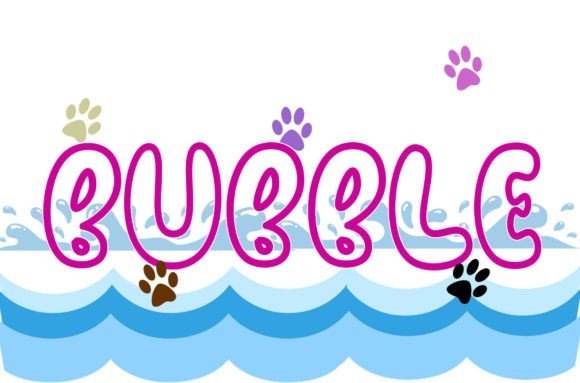
The Joy of Bubble Font: Bringing Whimsy to Your Designs
Have you ever sat down with a blank canvas, a spark of creativity in your mind, and a sense of excitement building up inside you? That’s where the magic happens, and for many designers, the key to unlocking that magic lies in the perfect font. For those who adore a touch of nostalgia and whimsy in their work, Bubble Font is the perfect companion.
Bubble Font is a charming retro-style display font designed to bring a sense of fun and playfulness to your designs. Whether you’re crafting birthday invitations, book covers, or children’s themed banners, this font is sure to add a touch of personality and charm. Its versatility and wide range of applications make it a valuable addition to any designer’s toolkit.
- Font Type: Bubble Font is a sans-serif font designed to resemble bubbles, with rounded edges and a playful feel.
- Character Set: Includes a wide range of characters, including uppercase and lowercase letters, numbers, and punctuation marks.
- Unique Characteristics: The Bubble Font features a unique, bubble-like design that adds a touch of whimsy and playfulness to any text-based project.
- Legibility: Despite its playful design, the Bubble Font is highly legible and easy to read, making it suitable for a wide range of applications, from children’s books to advertising materials.
Bubble Font Review
Overall, I think Bubble Font has some really interesting elements that make it stand out ✨. The rounded edges and bubbly texture give it a playful, whimsical feel that’s perfect for fun and creative projects. The font also comes in a range of weights and styles, which is always a plus for designers.
One of the things that works well about Bubble Font is its versatility ✨. It’s great for use in logos, social media graphics, and even digital signage. The font is also highly legible, making it easy to read even at small sizes.
What Could Be Improved:
- ⚠️ Limited use in professional or formal contexts: Due to its playful nature, Bubble Font may not be the best choice for serious or professional projects.
- ⚠️ Limited customization options: While the font comes in a range of weights and styles, there are limited options for further customization.
- ⚠️ Potential issues with readability at very small sizes: While the font is generally highly legible, it may become difficult to read at very small sizes.
Overall, I think Bubble Font is a solid choice for designers looking for a fun and playful font. However, it may not be the best choice for every project, and designers should carefully consider the context and audience before using it.
Some common use cases for the Bubble Font include:
– Creating playful and engaging titles or headings.
– Designing children’s books or educational materials.
– Adding a whimsical touch to social media graphics or advertisements.